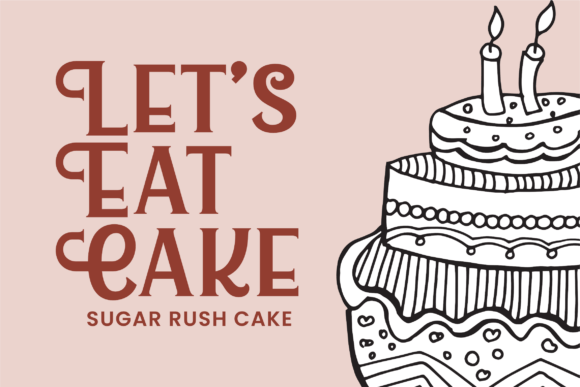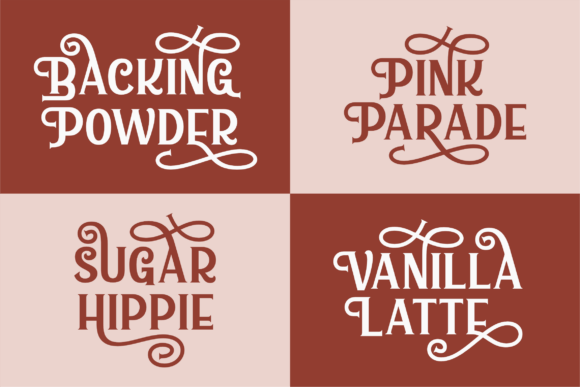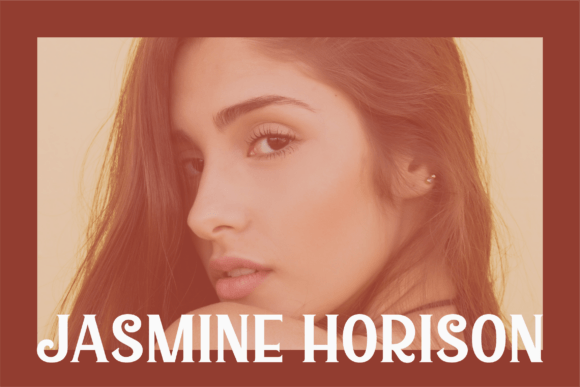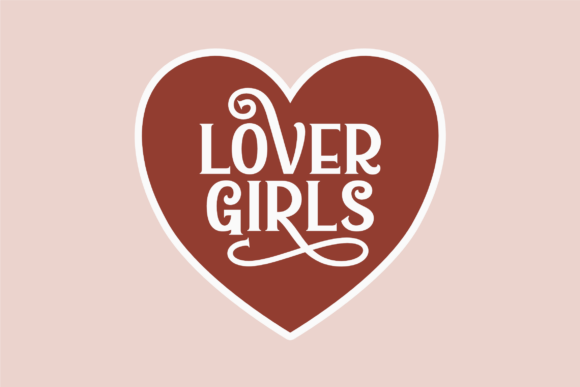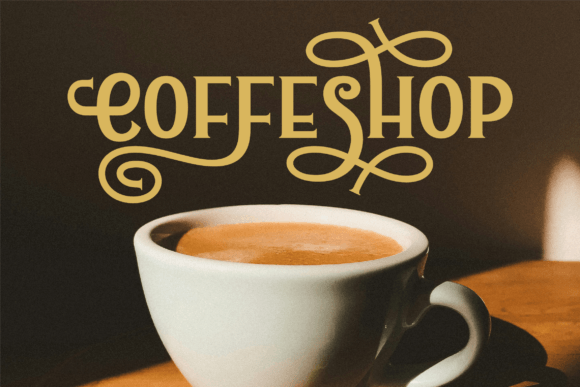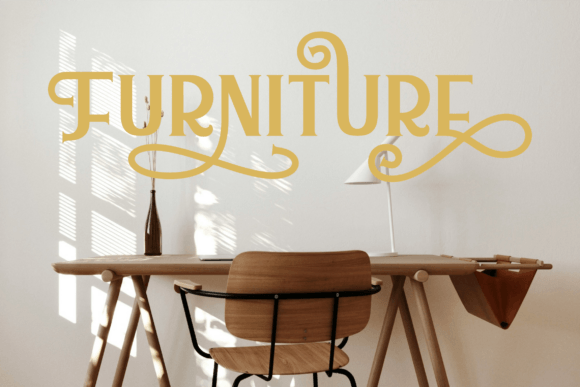
Auralisca Font: Elevate Your Designs with Elegance and Sophistication
In the world of typography, fonts play a crucial role in conveying the tone and personality of a design. For those seeking to add a touch of luxury and sophistication to their creative projects, the Auralisca font is an excellent choice. This elegant and stylish serif font is crafted with delicate swirls and captivating curves, making it perfect for high-class design needs.
The Characteristics of Auralisca Font
Auralisca is a serif font that exudes luxury and refinement. Each letter is carefully crafted to radiate a charming and sophisticated aura, making it ideal for designs that require a high level of elegance. The font features a combination of uppercase and lowercase letters, offering flexibility to create stunning layouts that cater to various design needs.
Key Features of Auralisca Font
- Elegant Serif Design: Auralisca’s serif design adds a touch of sophistication to any project, making it perfect for high-end branding, logos, and editorial designs.
- Delicate Swirls and Curves: The font’s delicate swirls and captivating curves add a level of refinement and luxury, setting it apart from other serif fonts.
- Uppercase and Lowercase Letters: The combination of uppercase and lowercase letters provides designers with the flexibility to create visually appealing layouts that cater to different design requirements.
- Additional Ornaments: Auralisca font comes with additional ornaments that add an artistic touch to designs, allowing designers to experiment and create unique visual elements.
Perfect for High-Class Design Needs
Auralisca font is perfect for a variety of high-class design needs, including:
- Logos: Create a lasting impression with a luxurious logo that showcases your brand’s personality and values.
- Invitations: Add a touch of elegance to your invitations, making them perfect for weddings, galas, and other high-end events.
- Packaging: Elevate your packaging design with Auralisca font, making your products stand out on store shelves.
- Creative Projects: Use Auralisca font to add a level of sophistication to your creative projects, such as brochures, magazines, and editorial designs.
Tips for Using Auralisca Font
To get the most out of Auralisca font, consider the following tips:
- Pair with Neutral Backgrounds: Auralisca font shines on neutral backgrounds, allowing its elegant design to take center stage.
- Experiment with Ornaments: Don’t be afraid to experiment with the font’s additional ornaments to add a unique touch to your designs.
- Balance with Simplicity: Balance Auralisca font with simple design elements to avoid overwhelming the viewer and maintain a level of sophistication.
Auralisca font is an excellent choice for designers and crafters seeking to add a touch of luxury and sophistication to their creative projects. With its elegant serif design, delicate swirls, and captivating curves, this font is perfect for high-class design needs. By incorporating Auralisca font into your designs, you’ll be able to create visually stunning layouts that exude elegance and refinement.